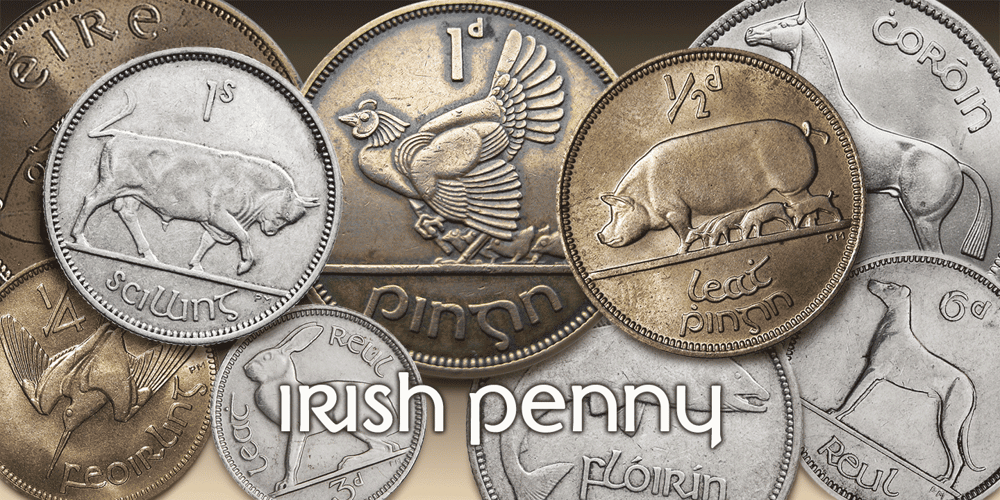
Irish Penny Font Family was designed by Keith Bates and published by K-Type. Irish Penny contains 3 styles and family package options. Irish Penny is based on the lettering from Percy Metcalfe’s beautiful and influential pre-decimal coinage of Ireland, the Barnyard Collection. The font is more monoline than is conventional for Irish insular styles, almost giving the feel of a modern soft sans, and perfect for small and large scale display purposes.Irish Penny contains a full complement of Latin Extended-A accented characters, Irish lenited consonants with the dot accent, and the tironian et which is commonly used in Ireland instead of an ampersand. Lowercase characters are provided small caps style, slightly reduced in size and subtly thickened in weight. The licensed font comes with a faux italic, and although obliques are not common among insular typefaces, Irish Penny Italic is a useful smart and sporty extra.Although the insular G/g is usually understood, Irish Penny also includes a more latinised option as an alternate G/g. The supplemental ‘Irish Penny Alternate G’ font places the latinised G and g characters at the normal G/g keystrokes, and makes the original insular glyphs the alternates.An alternate E/e with an angled crossbar is also included.The font contains a selection of discretionary ligatures, these include the ligatures that were used for pre-decimal coins:AC/ac, AE/ae, AL/al, AO/ao, AU/au, AT/at (halfpenny, half crown), AX/ax, AY/ayCA/ca, CC/cc, CE/ce, CO/co (half crown), CU/cu, CY/cyEA/ea (halfpenny, half crown), EC/ec, EE/ee, ET/et, EU/eu (sixpence), EY/eyFE/fe (farthing), FF/ff, FL/fl (florin)GI/gi (penny), GU/guKA/ka, KE/ke, KI/ki, KO/ko, KT/kt, KU/kuLA/la, LE/le (halfpenny, half crown), LL/ll (shilling), LO/lo, LT/lt, LU/lu, LY/lyRA/ra, RC/rc, RE/re (three/sixpence), RH/rh, RI/ri (florin), RK/rk, RN/rn, RM/rm, RO/ro (half crown), RR/rr, RT/rt, RU/ru, RY/ryTA/ta, TE/te, TO/to, TU/tuNOTE – Irish Penny contains some characters that are not accessible directly from your keyboard, but which may be copied from a font viewer such as Character Map, Font Book or FontExplorer, and pasted into documents. They can also be accessed from the Glyphs browsers within OpenType-aware applications like Adobe InDesign and Illustrator, and Affinity Photo and Publisher.